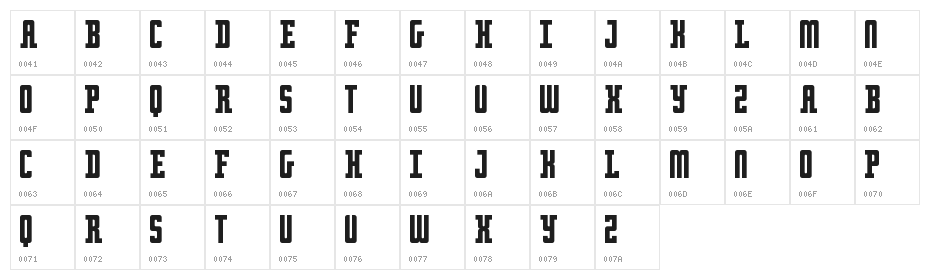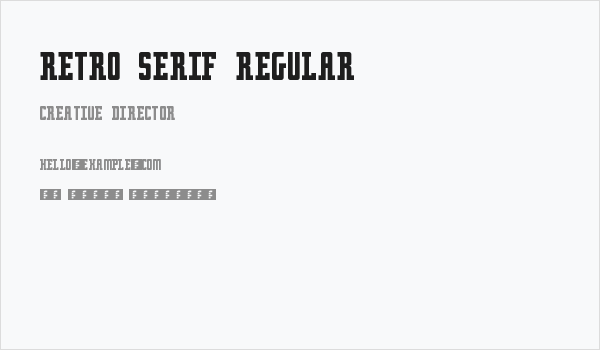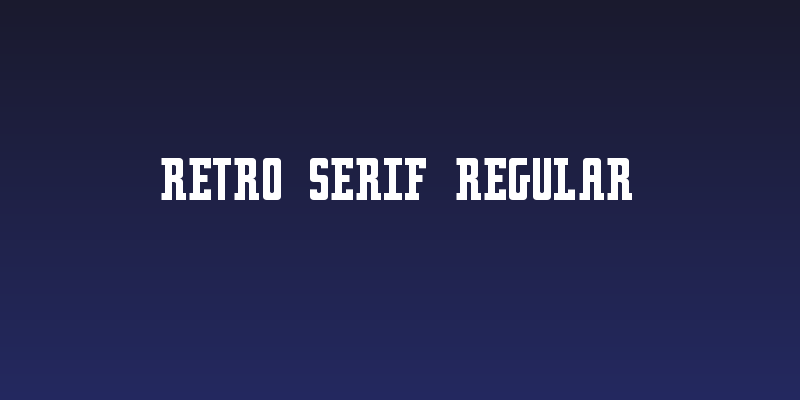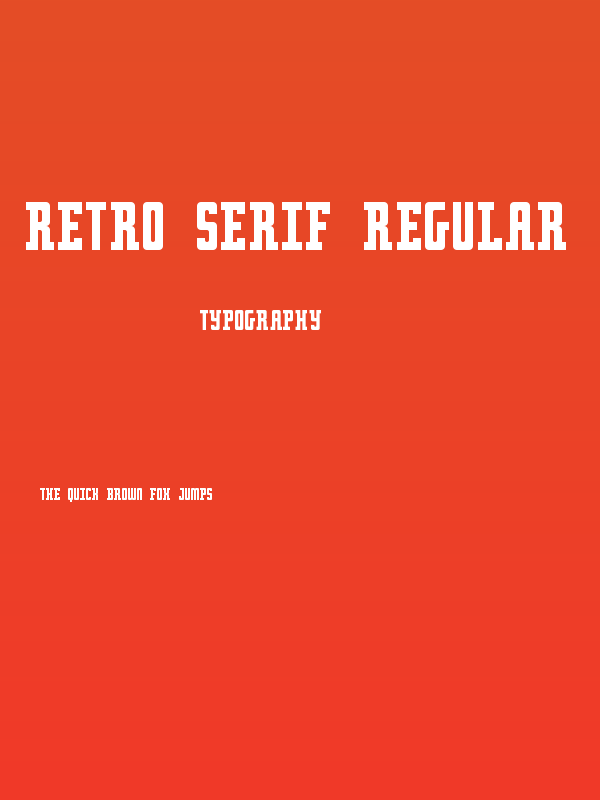
Retro serif Regular Font
Retro serif Regular Description
This font features a bold, retro-inspired serif design with strong vertical lines and minimal curves, giving it a distinct, vintage feel. The characters are uniformly structured, with consistent stroke widths that emphasize a robust and sturdy appearance. The uppercase letters are particularly striking, with their tall, narrow forms and pronounced serifs. The lowercase letters maintain the same boldness, ensuring readability while preserving the font's unique style. The numbers and special characters are designed to match the overall aesthetic, making this font versatile for various design applications.
| Width | Condensed |
| Overall Style | Vintage |
| Proposed Projects | Ideal for vintage-themed posters, branding, packaging, and headlines that require a strong, nostalgic presence. |